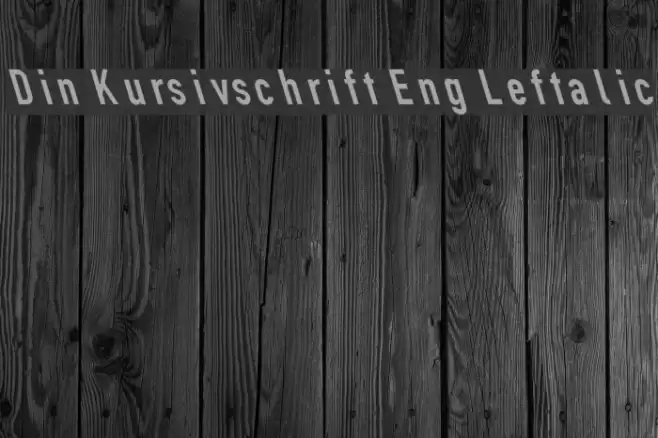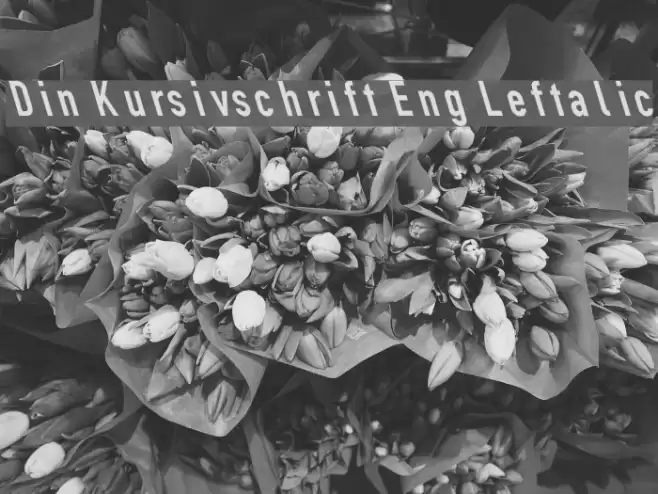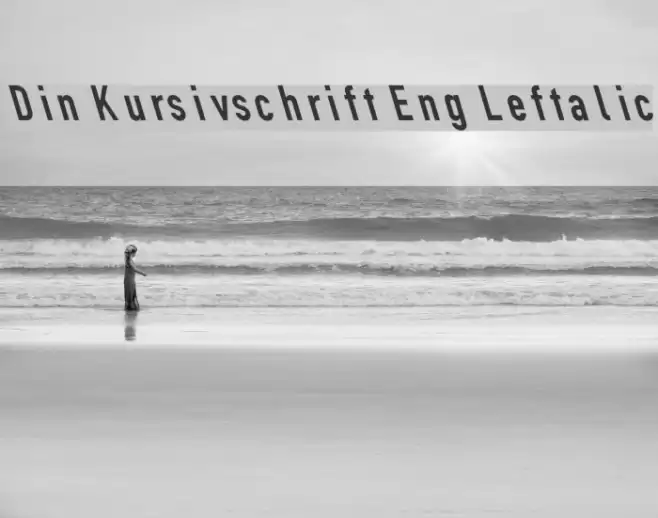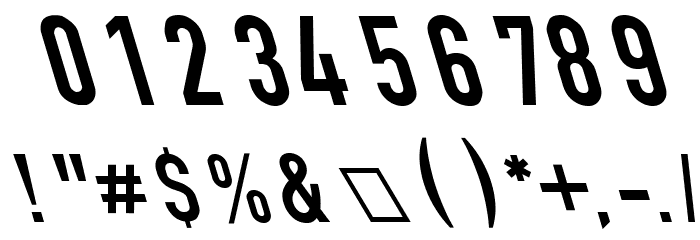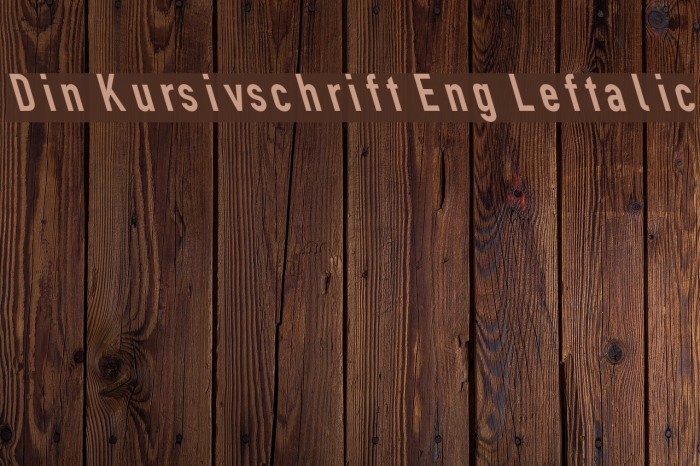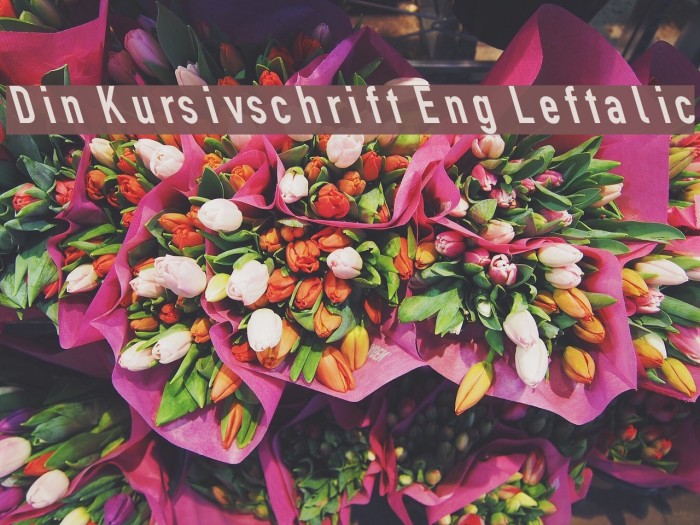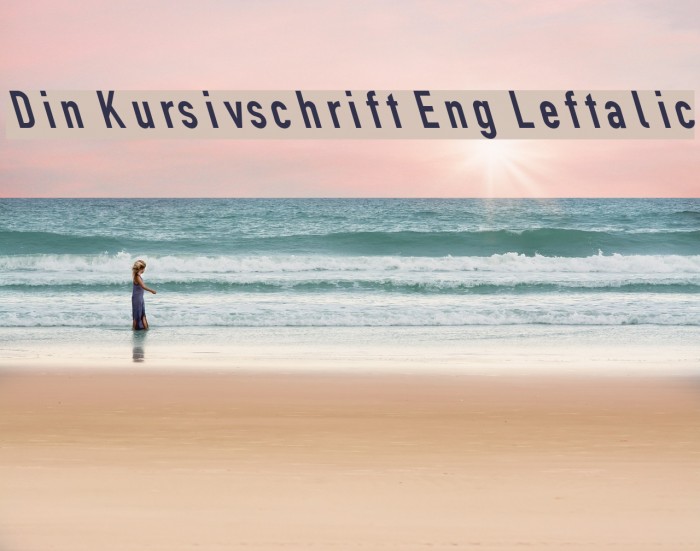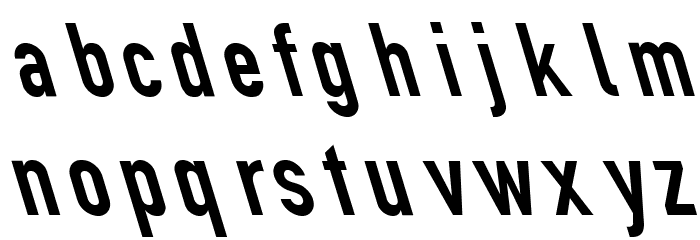
Din Kursivschrift Eng Leftalic Font
Din Kursivschrift Eng Leftalic Description
This font features a distinct italic style with a leftward slant, giving it a dynamic and forward-moving appearance. The characters are bold and sans-serif, providing a clean and modern look. The uppercase and lowercase letters maintain consistent proportions, ensuring readability. The numerals are clear and well-defined, matching the overall style of the alphabet. Special characters are included, offering versatility for various design needs. The font's boldness and slant make it suitable for attention-grabbing headlines and impactful text displays.
A bold, left-italic sans-serif font with a modern and dynamic style from Uncategorized fonts.
- Proposed Projects: Ideal for branding, advertising, and editorial design where a modern and bold statement is needed.